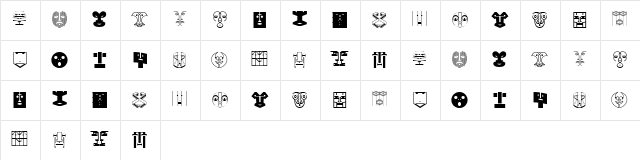
Munari Regular
Design Context for Munari Typeface
Munari is a composed and adaptable typeface that performs quietly and consistently across a wide range of design contexts.